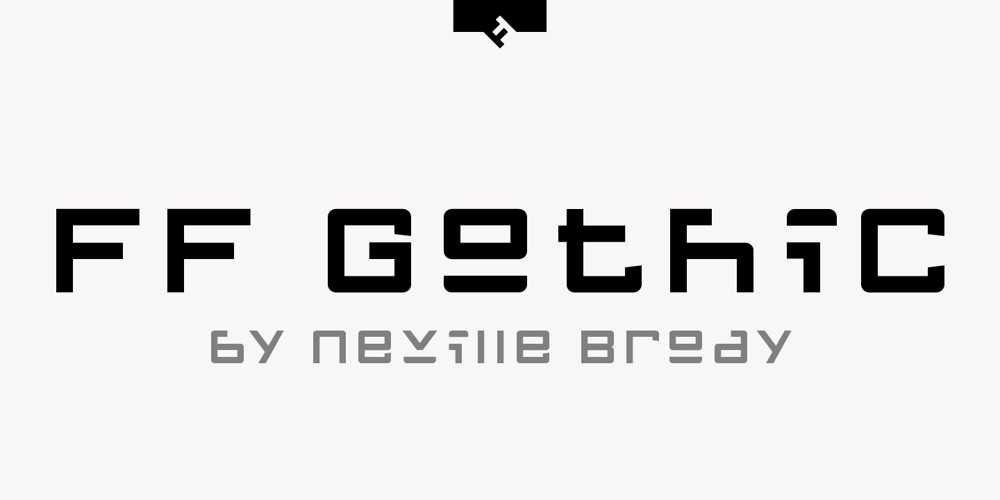
FF Gothic Font Family was designed by Neville Brody and published by FontFont. FF Gothic contains 2 styles and family package options. British type designer Neville Brody created this display and sans FontFont in 1992. The family contains 2 weights: Regular and Condensed and is ideally suited for advertising and packaging, music and nightlife, poster and billboards, software and gaming as well as sports. FF Gothic provides advanced typographical support with features such as ligatures and stylistic alternates. It comes with tabular lining and proportional lining figures.